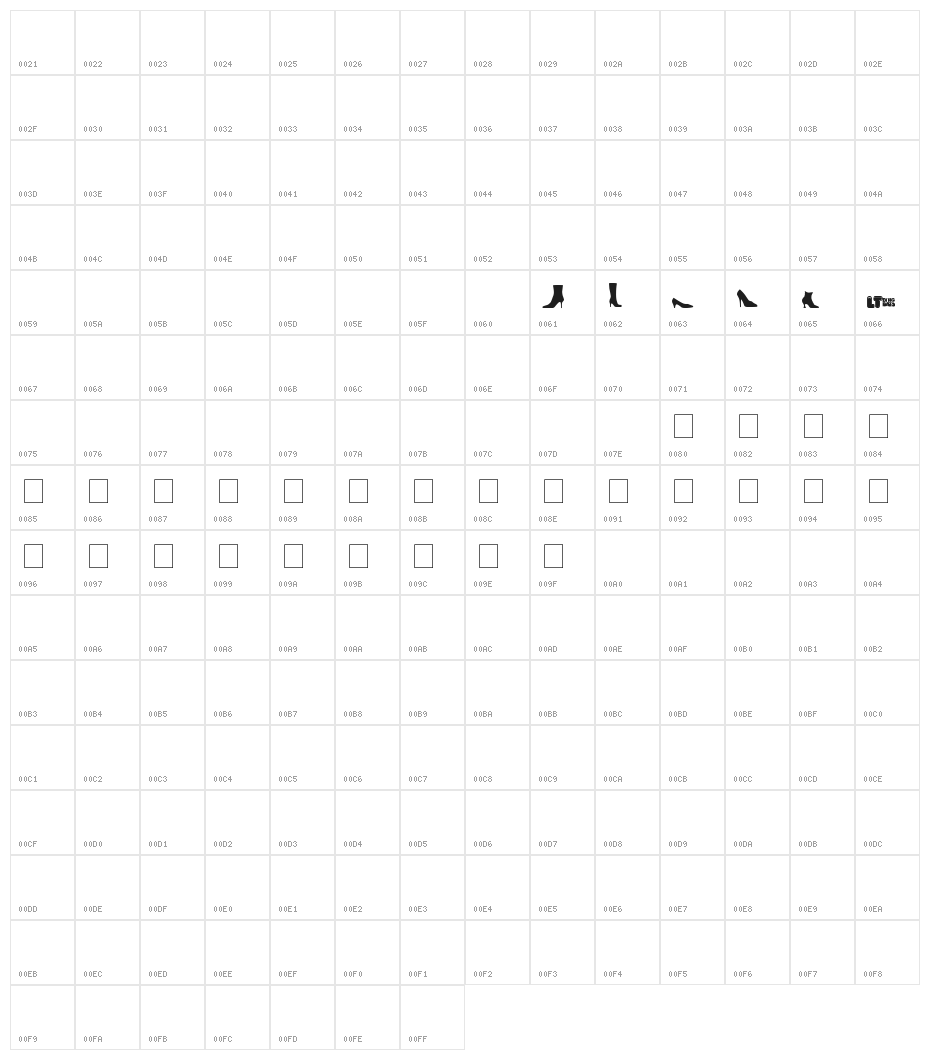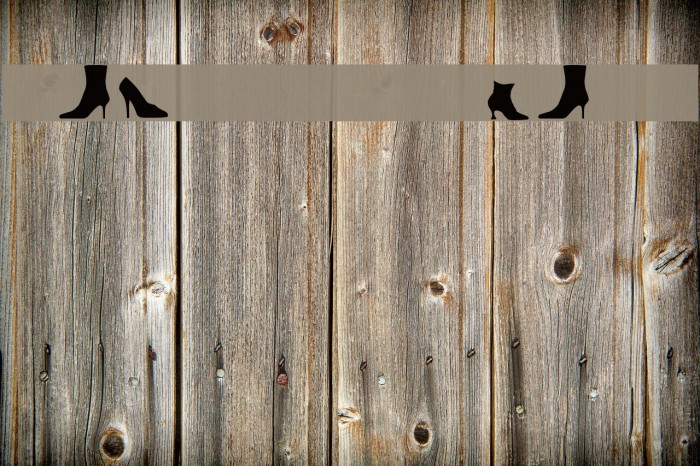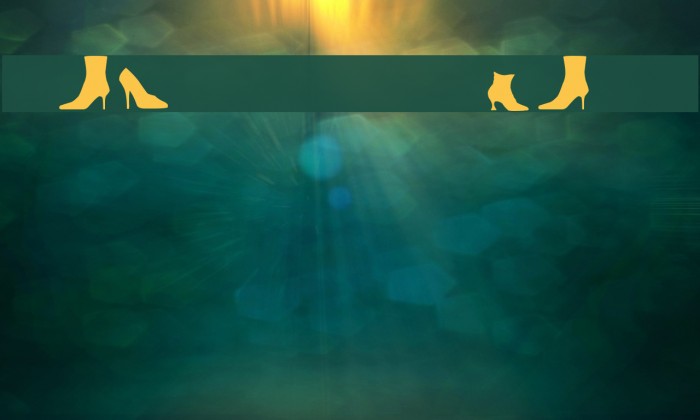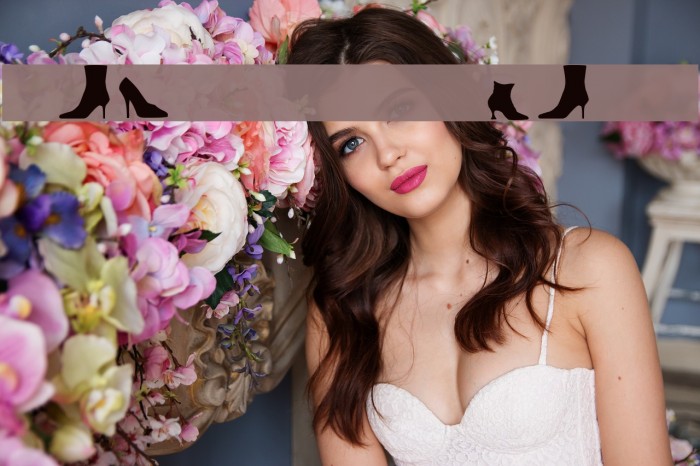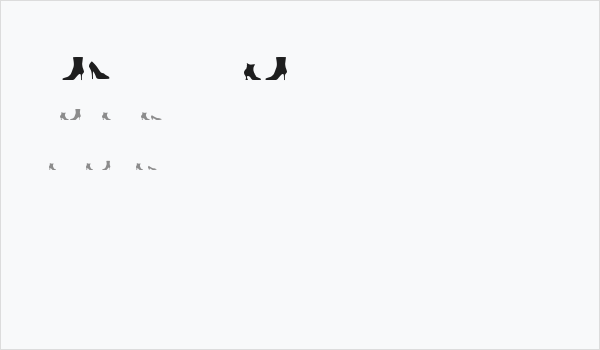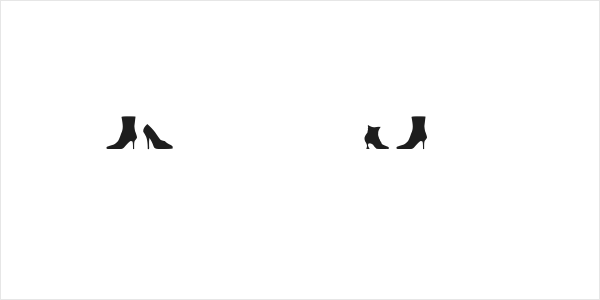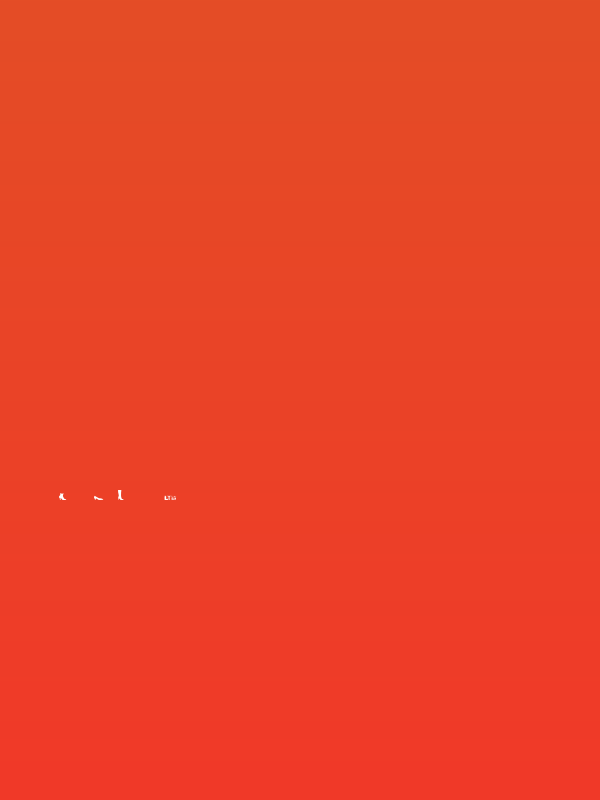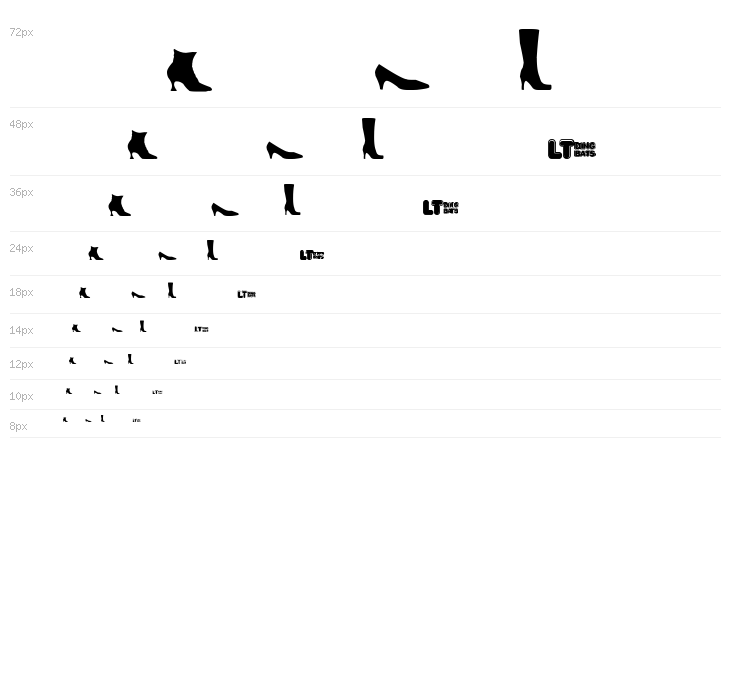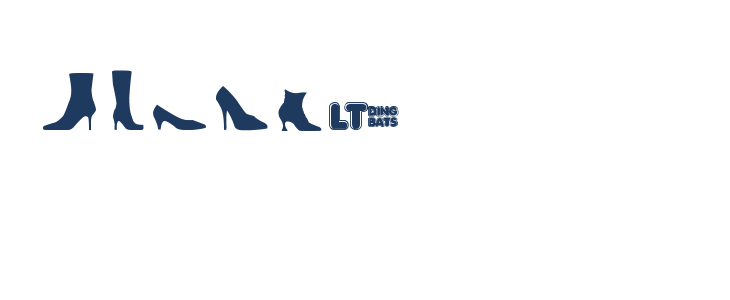
Lady Footwear LT Font
Lady Footwear LT Description
A decorative dingbat font featuring solid black silhouettes of various women's footwear styles, including boots and high heels, with playful and bold letterforms for the 'LT DINGBATS' text.
| Use Case | Logos, Posters, Decorative elements |
| Proposed Projects | Fashion branding, shoe store signage, event invitations, decorative graphics, themed posters. |